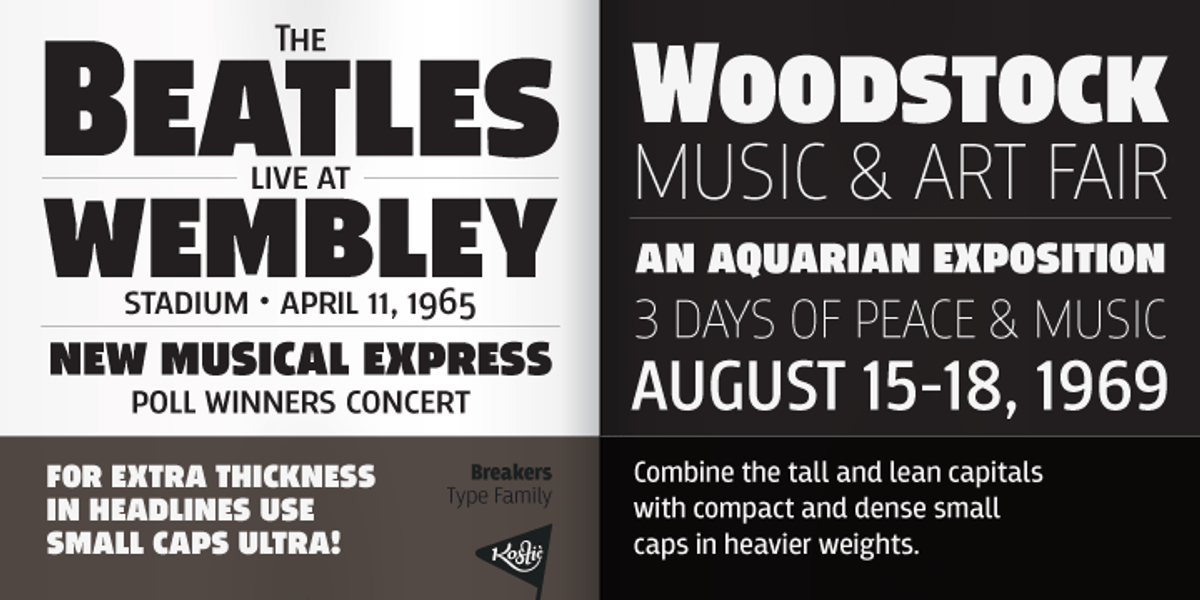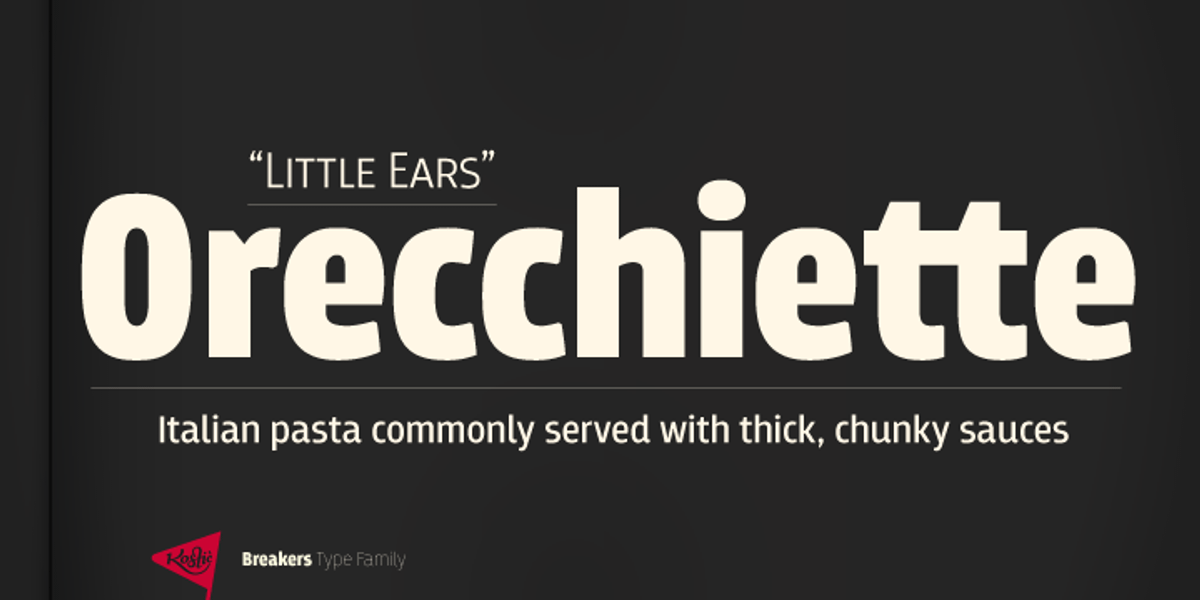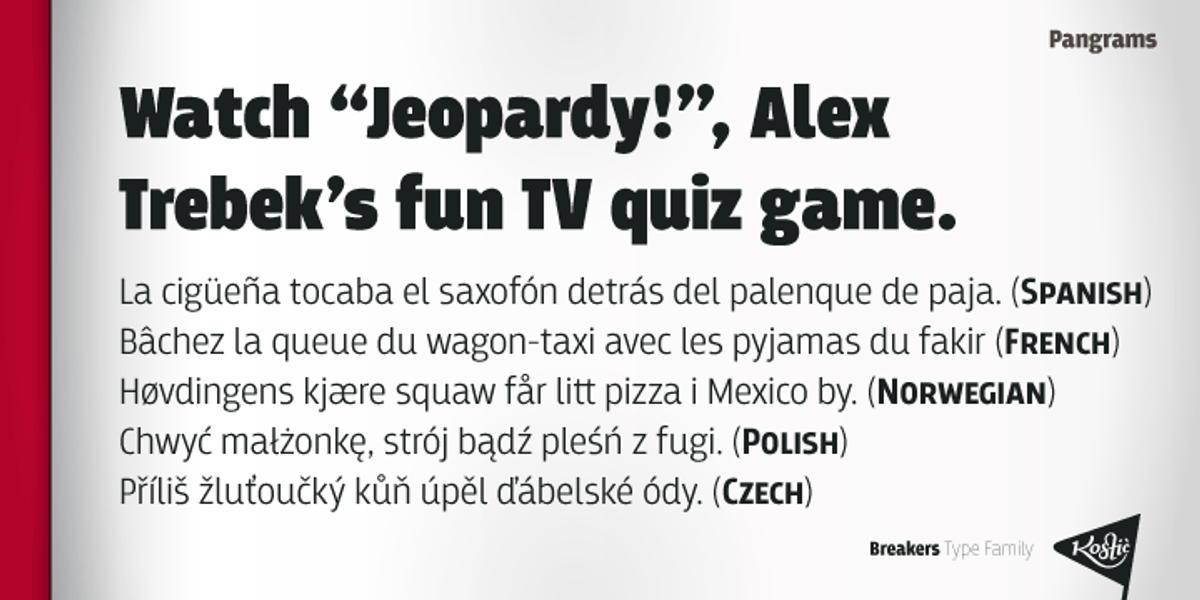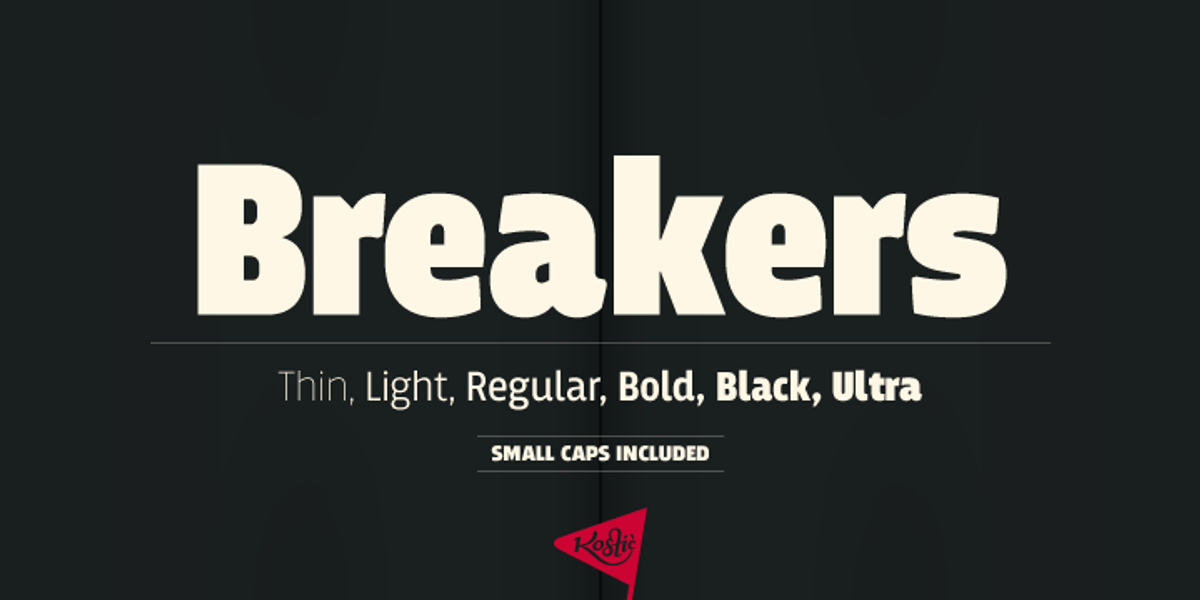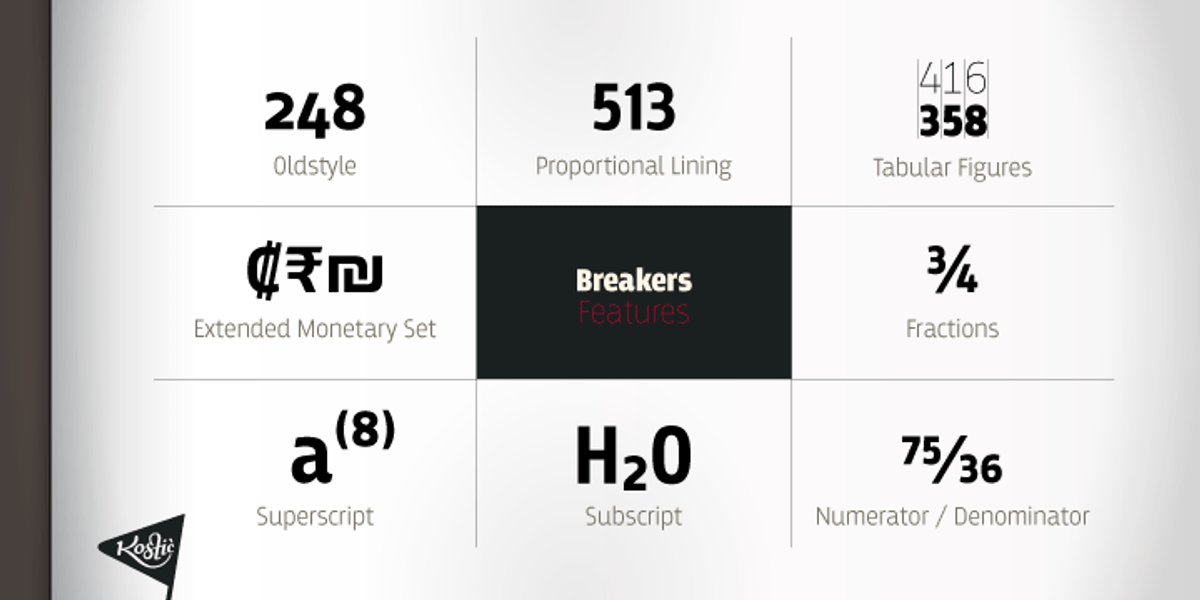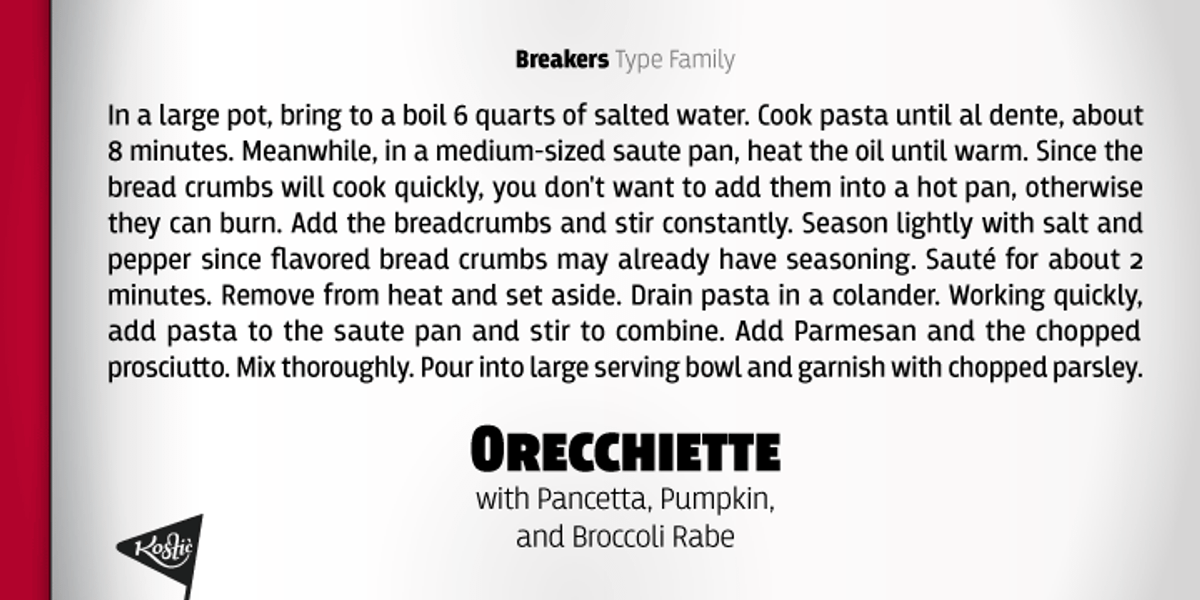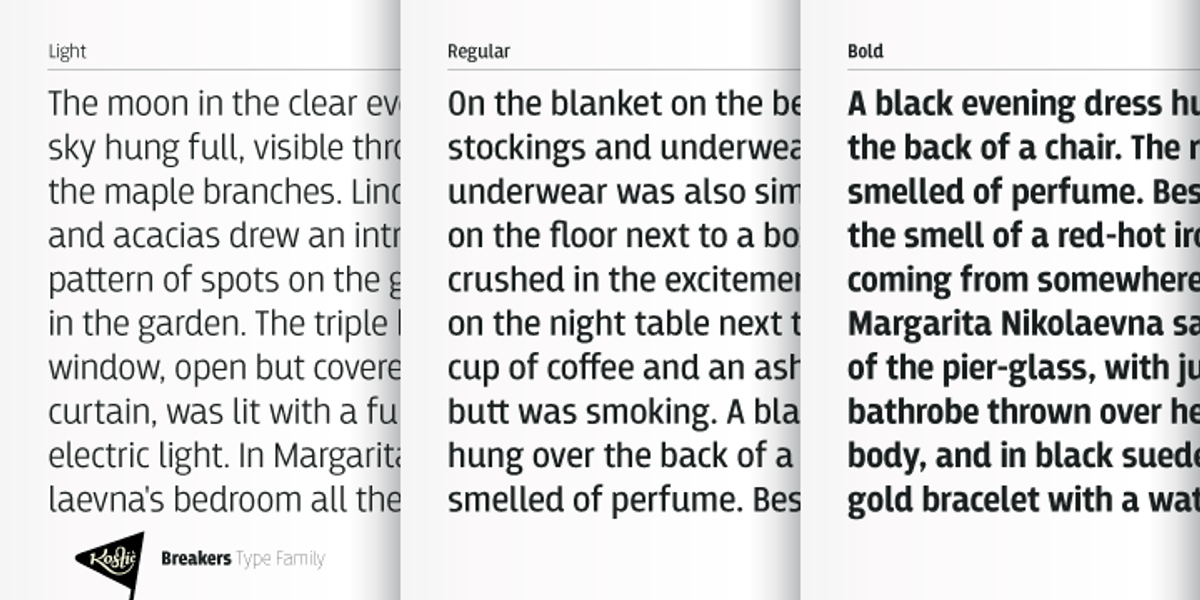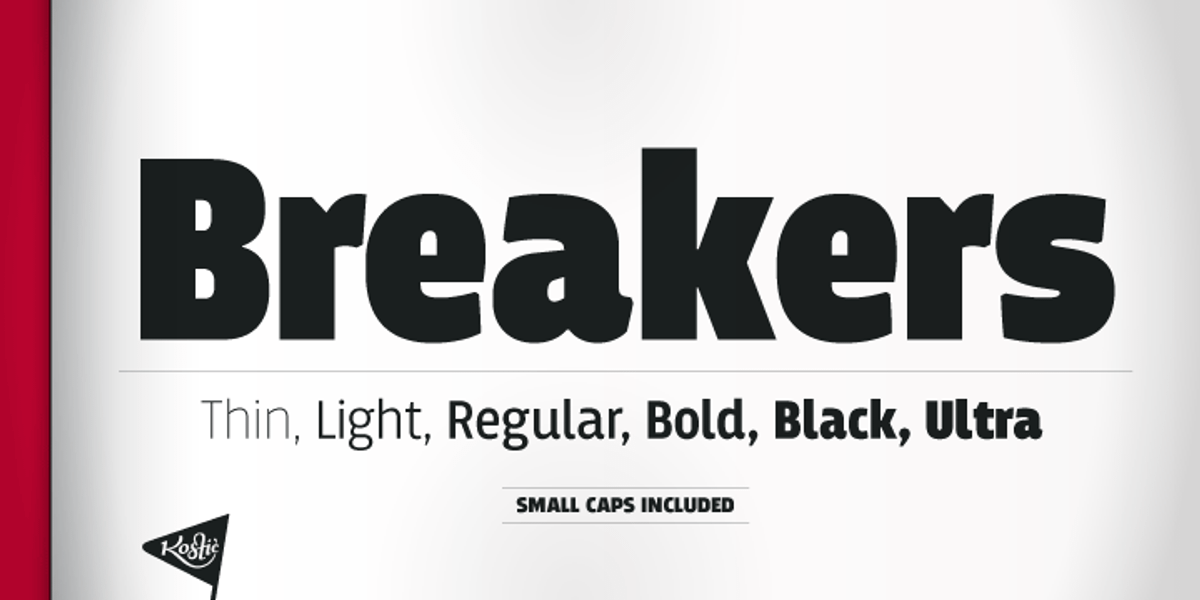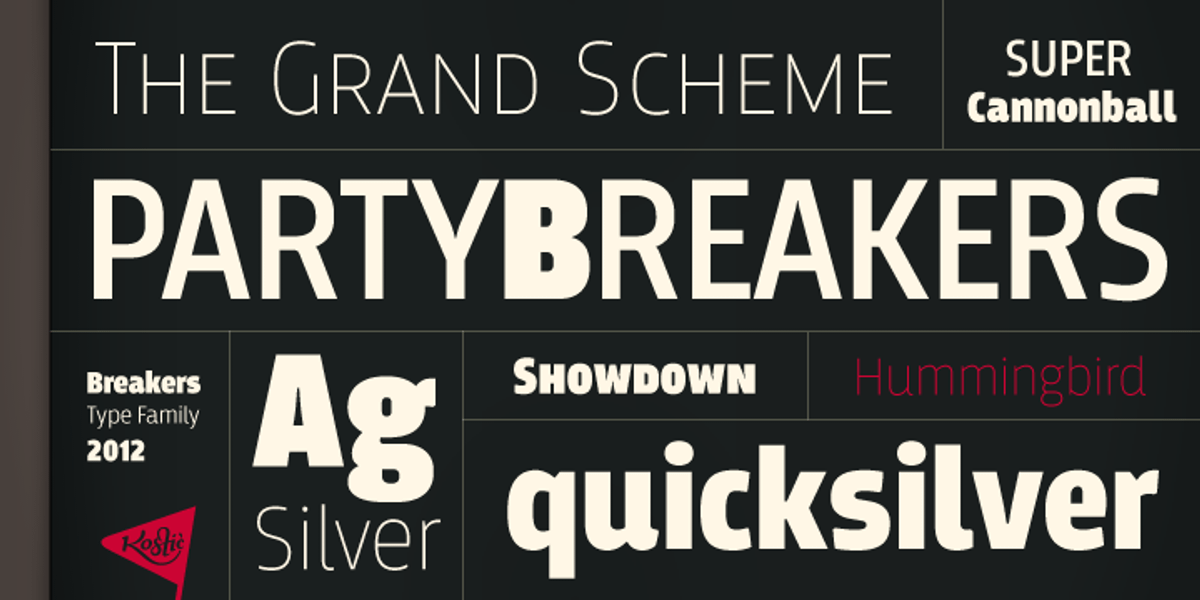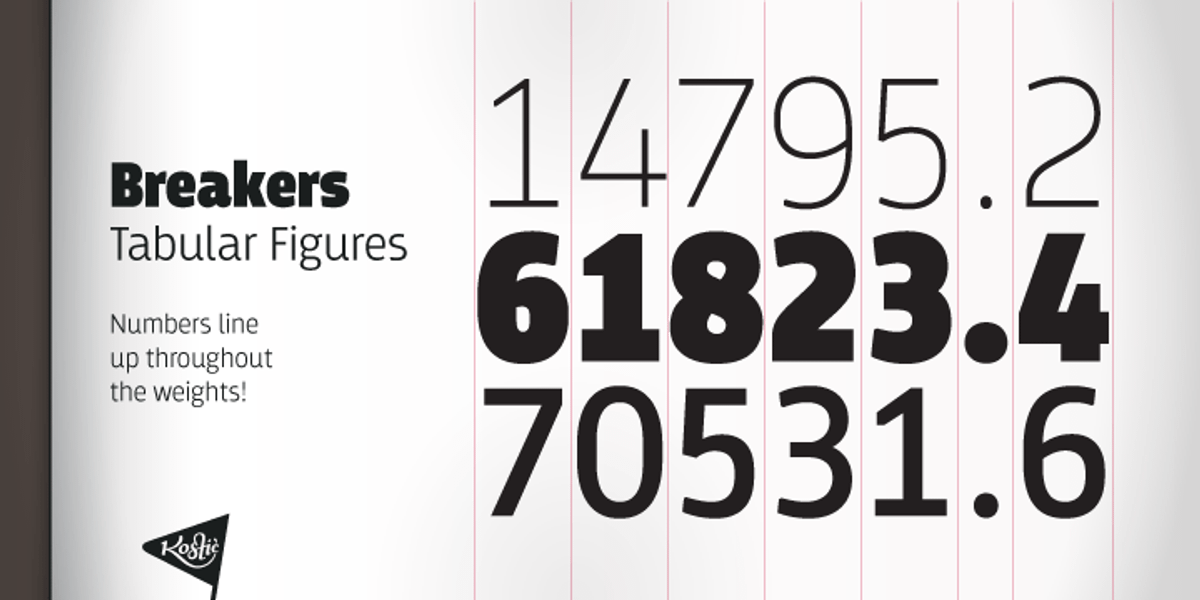
Breakers
Beakers is a sans-serif typeface designed for versatility. Its range of weights, from thin to ultra bold, allows for high contrast pairings and diverse typographic compositions. The inclusion of small caps further expands its design possibilities. Beakers supports Western and Central European languages, as well as an extended set of monetary symbols.